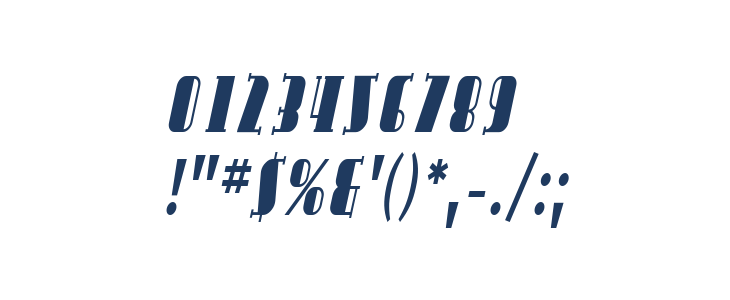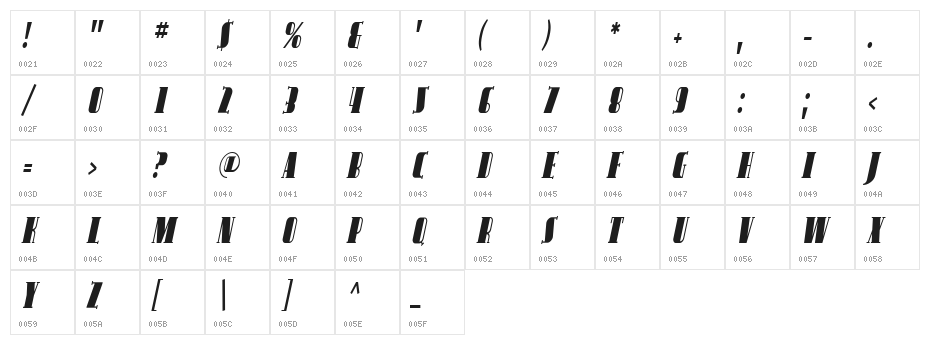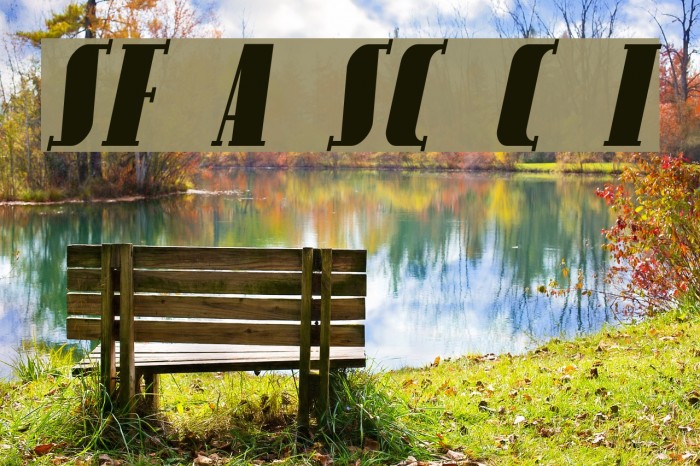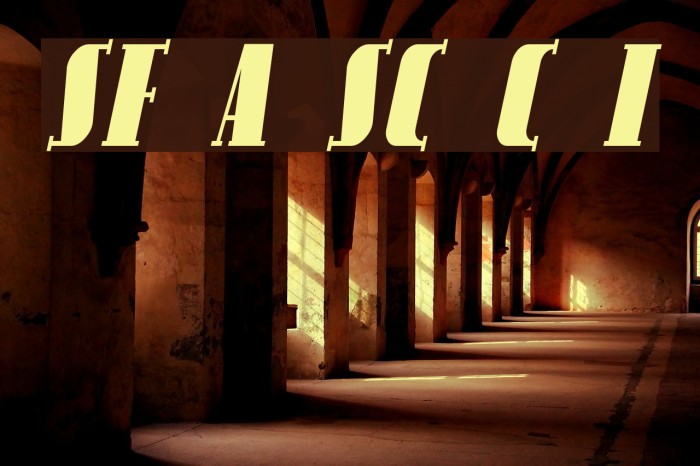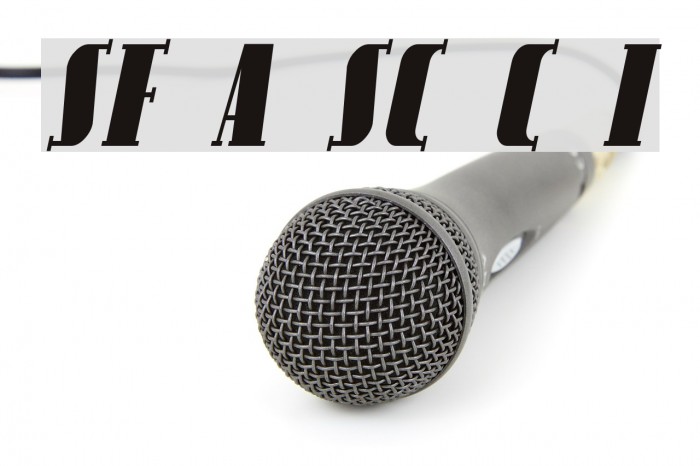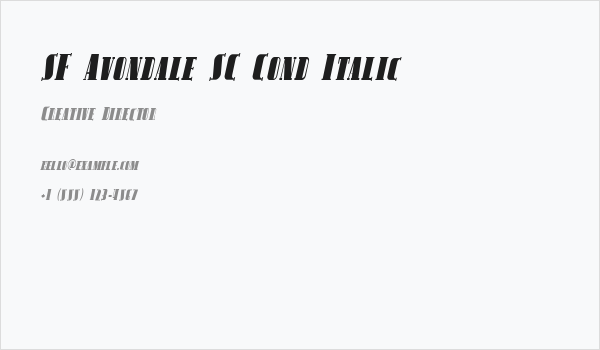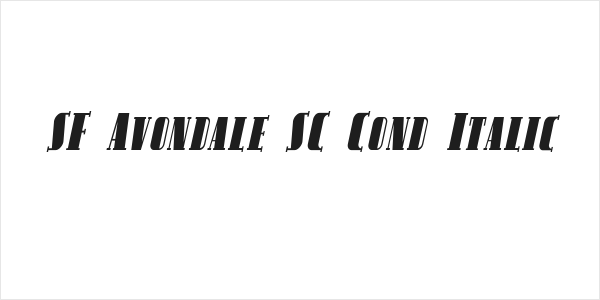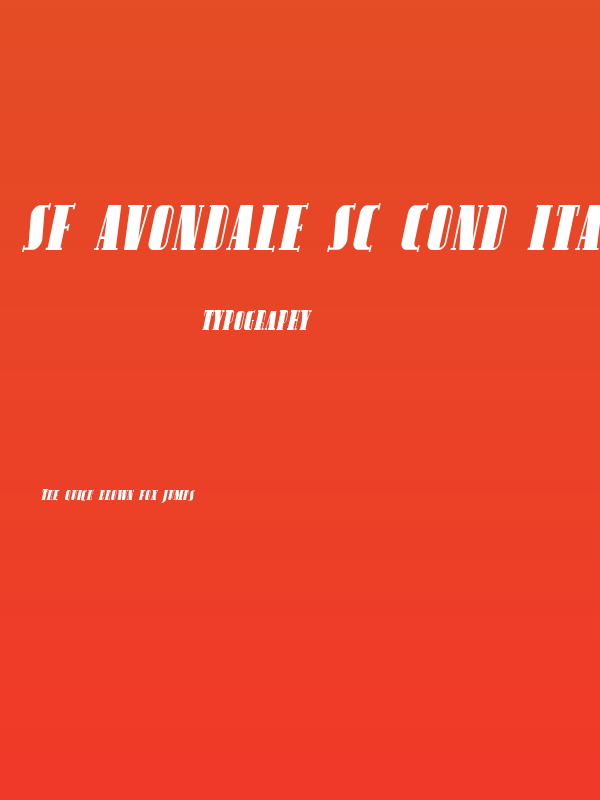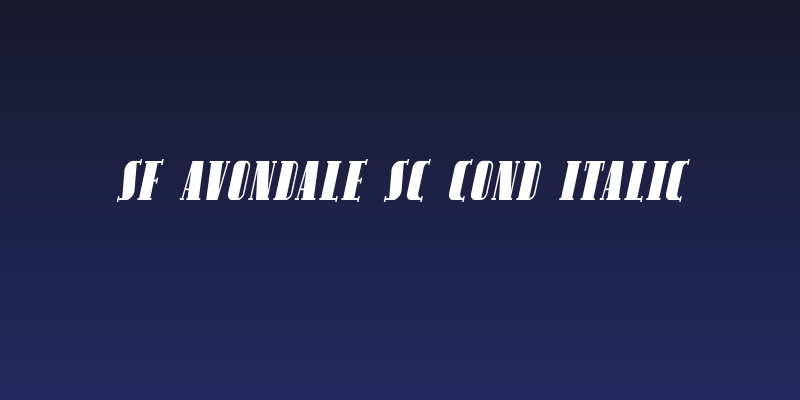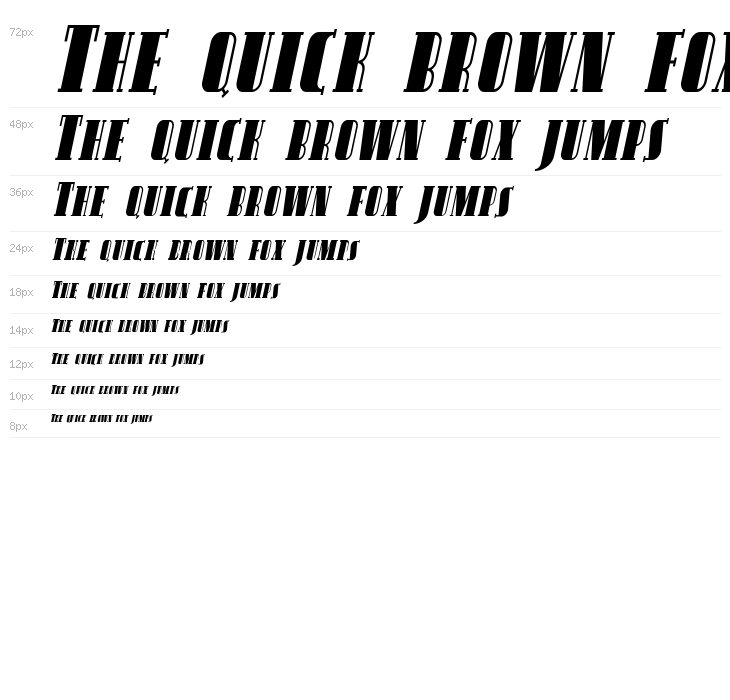
SF Avondale SC Cond Italic Font
SF Avondale SC Cond Italic Description
This font features a bold and italicized style with a condensed width, giving it a dynamic and energetic appearance. The characters are sharply defined with high contrast between thick and thin strokes, enhancing its readability and impact. The uppercase letters are particularly striking, with elongated forms that convey a sense of movement and sophistication. The lowercase letters maintain the same boldness, ensuring consistency across text. Numbers and special characters are equally bold and well-defined, making them suitable for a variety of uses. The overall style is modern and assertive, ideal for making a strong visual statement.